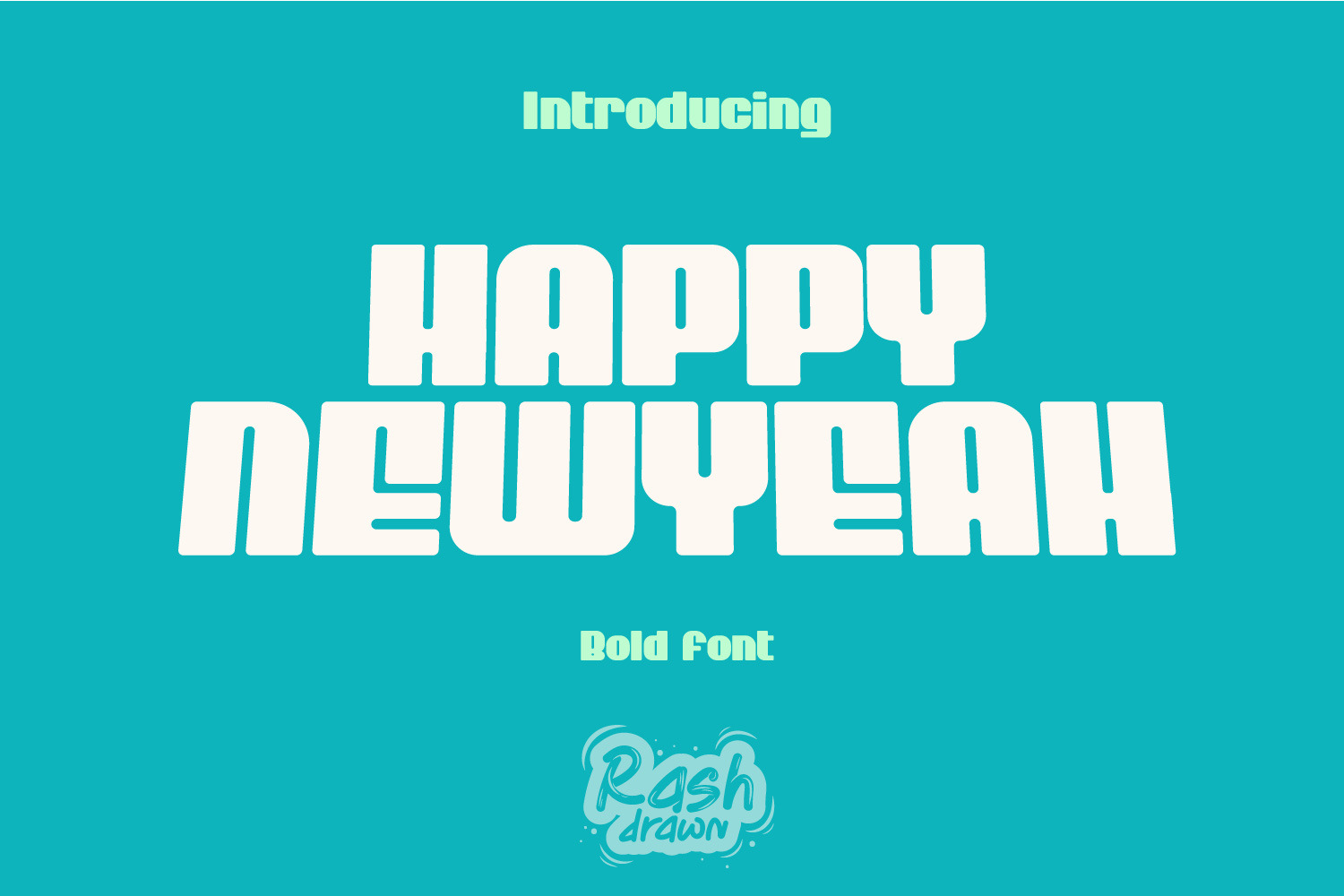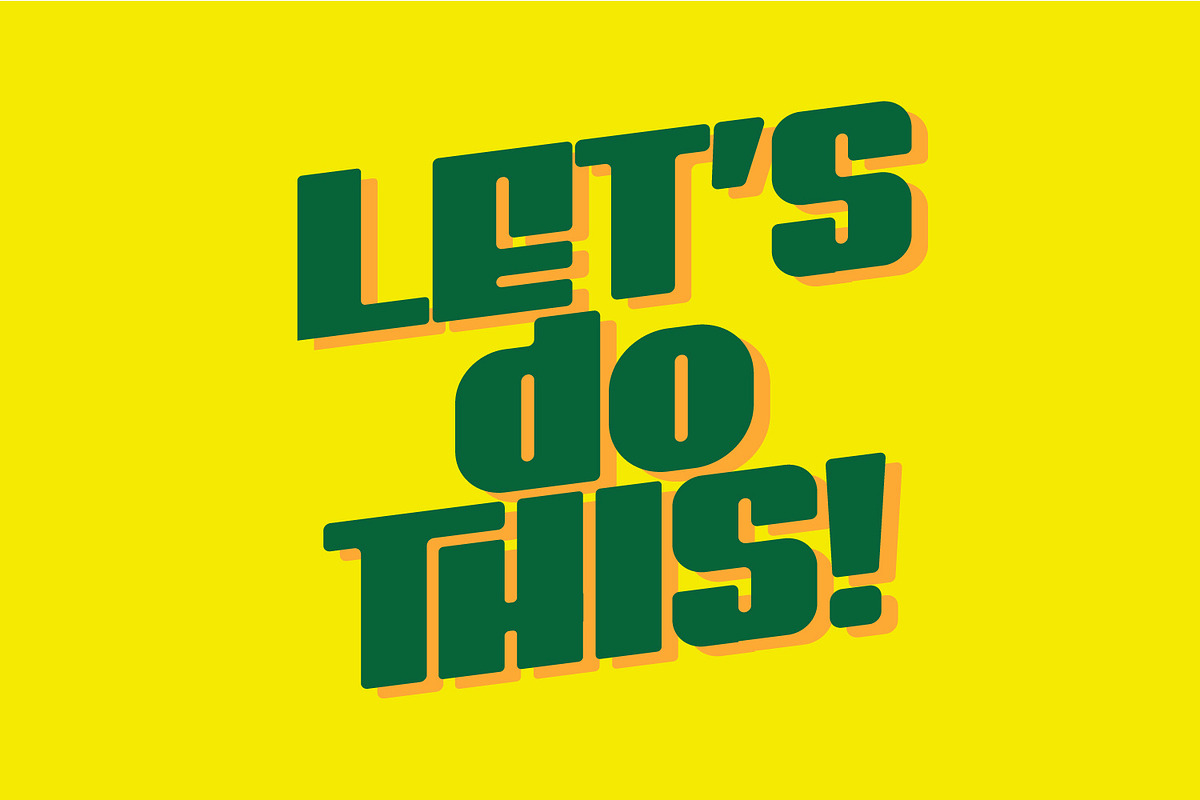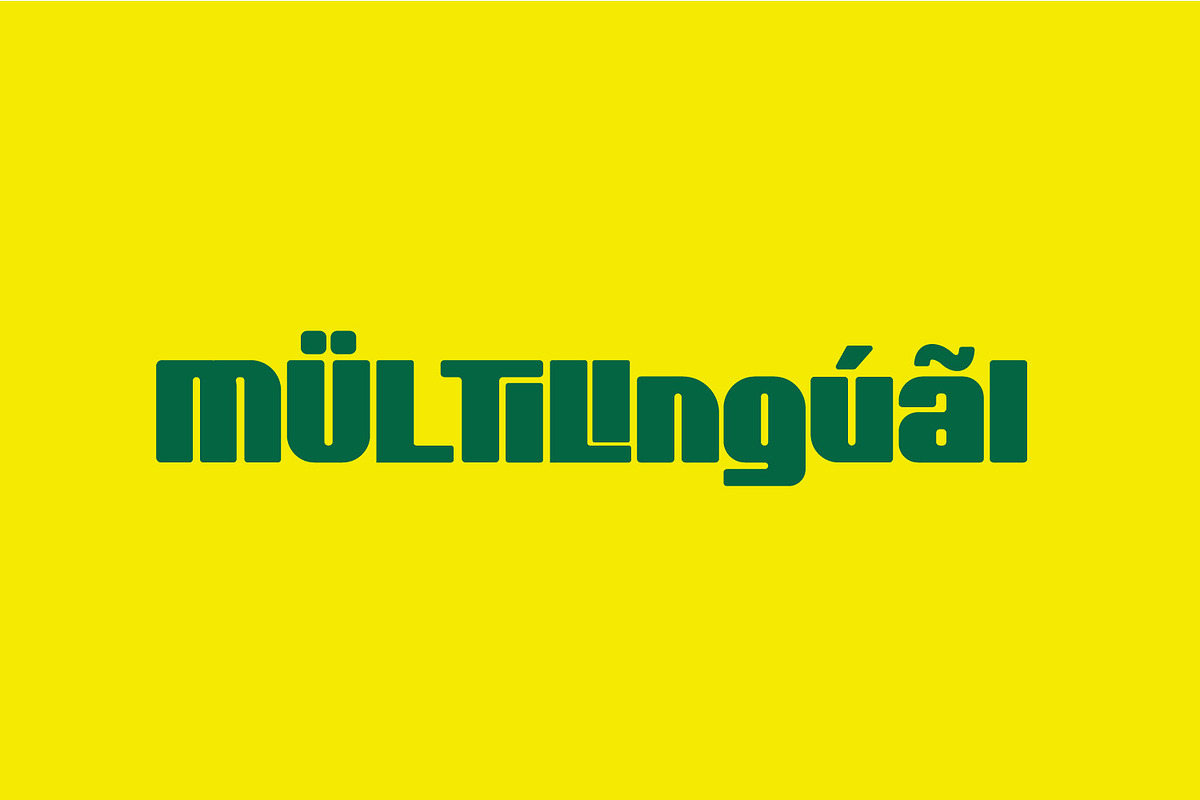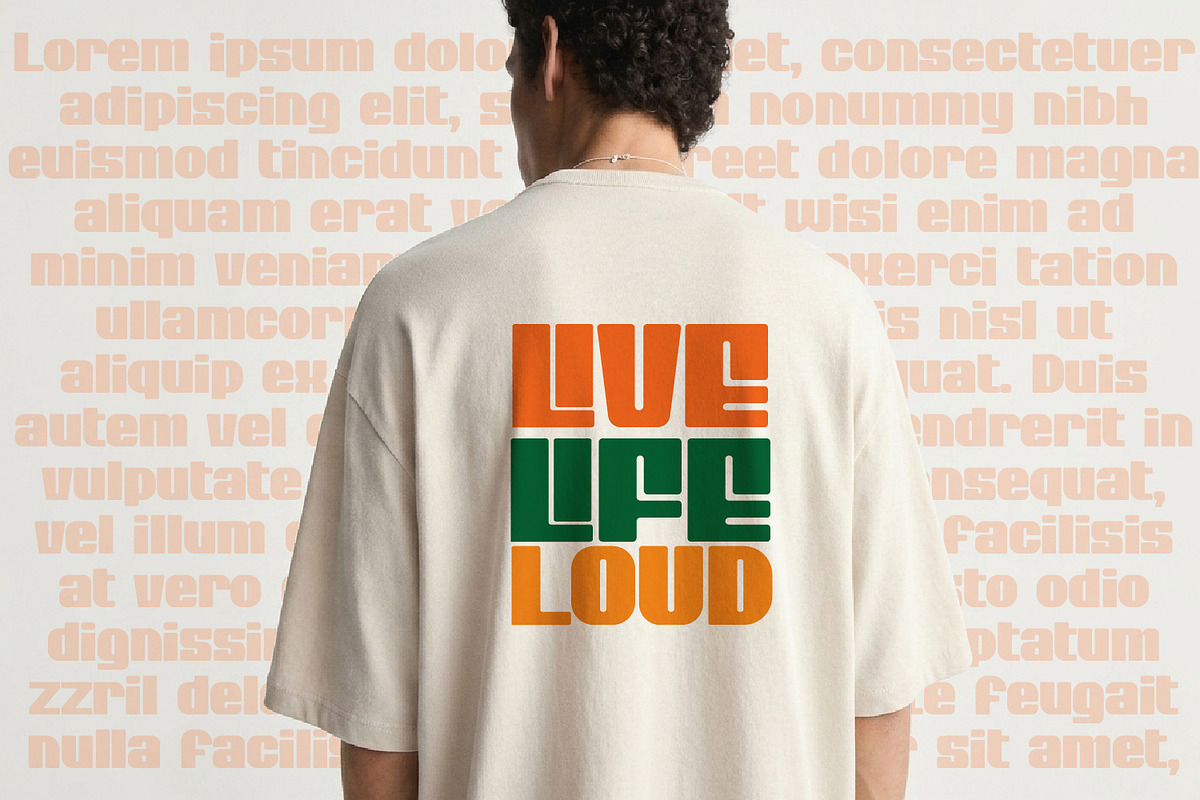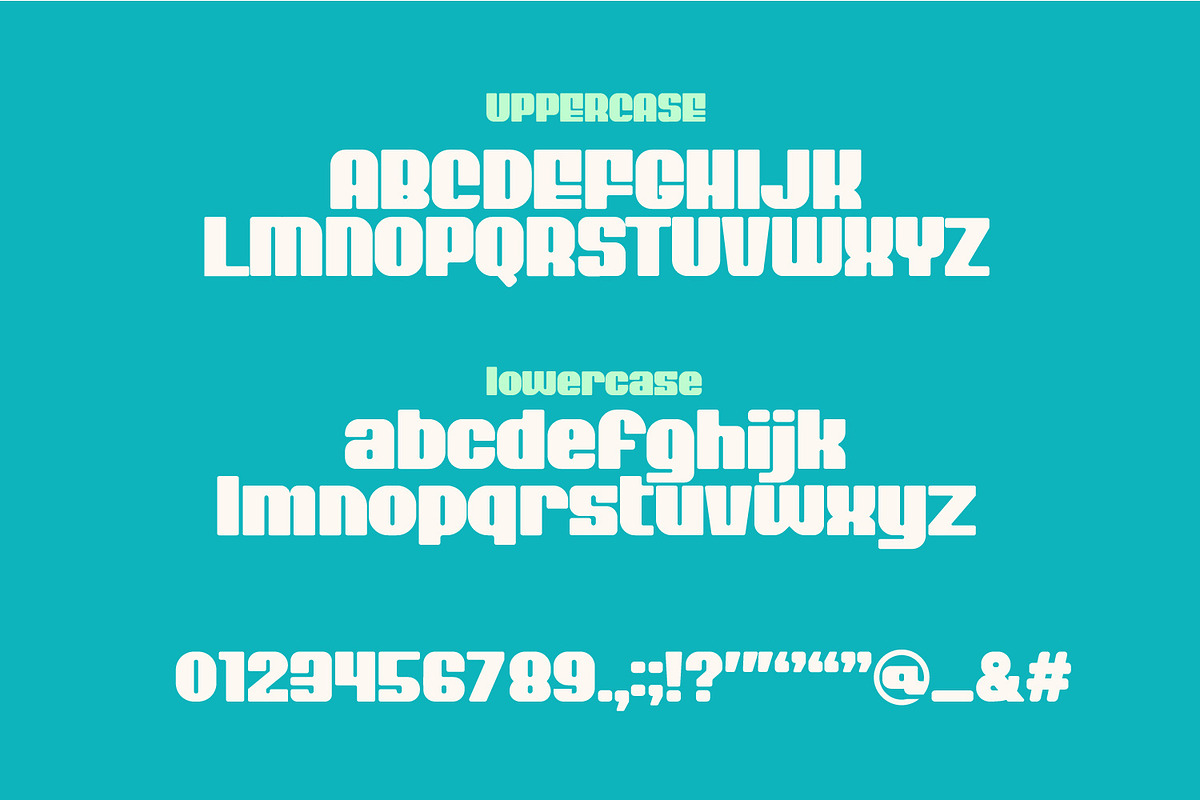
Happy Newyeah - Bold Display Font
Introduce Happy Newyeah—a bold, heavy display font with a strong, unique, and modern-retro vibe. This font is specifically designed to give your designs an eye-catching, dynamic, and high-energy feel.
It is ideal for various creative projects such as t-shirt designs, posters, branding, headlines, album covers, motivational quotes, social media content, and all kinds of merchandise needs.
Bold & Unique Style: Heavy letterforms with distinctive cutouts that make your designs instantly stand out.
Complete Character Set: Includes uppercase letters, lowercase letters, numbers, and essential punctuation marks.
Multilingual Support: Supports a wide range of international languages for global usability.